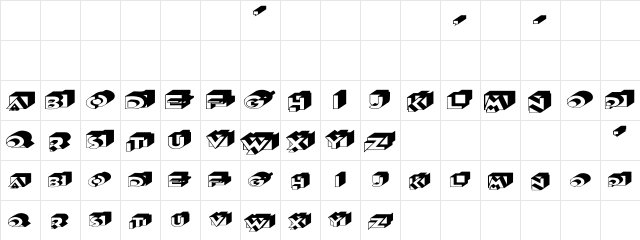
QubistHeavy Regular Free Font
QubistHeavy Regular
Design Context for QubistHeavy
QubistHeavy is a composed and adaptable typeface that performs quietly and consistently across a wide range of design contexts.